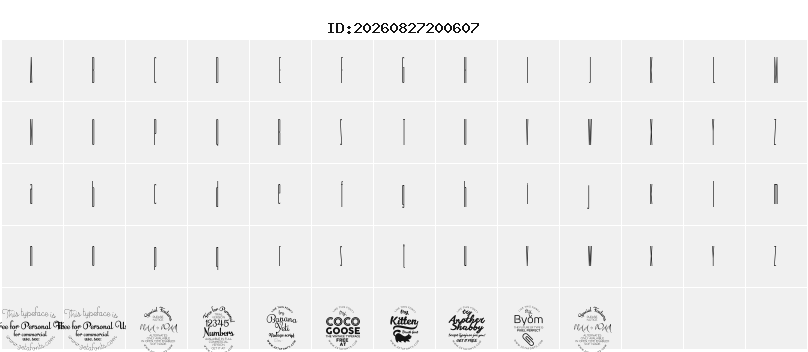
tallest Preview
• Font Name: tallest
• Designer: Francesco Canovaro
About tallest.ttf
tallest.ttf is a modern, elegant sans-serif font designed for ultimate readability and visual harmony. Perfect for branding, headlines, web design, and print materials.